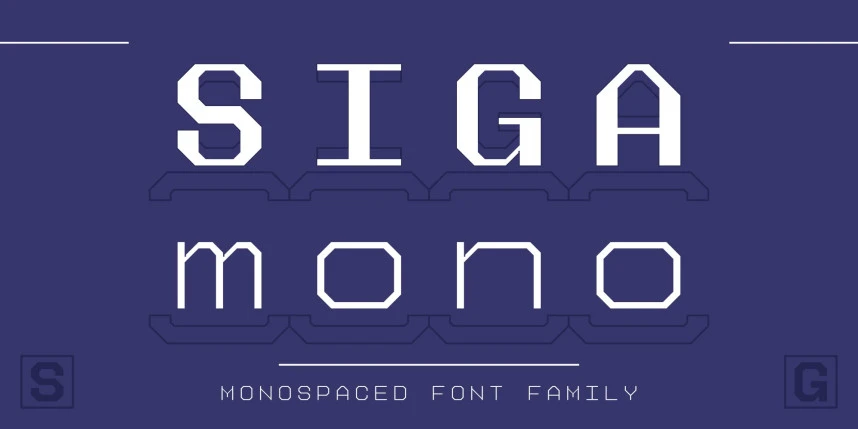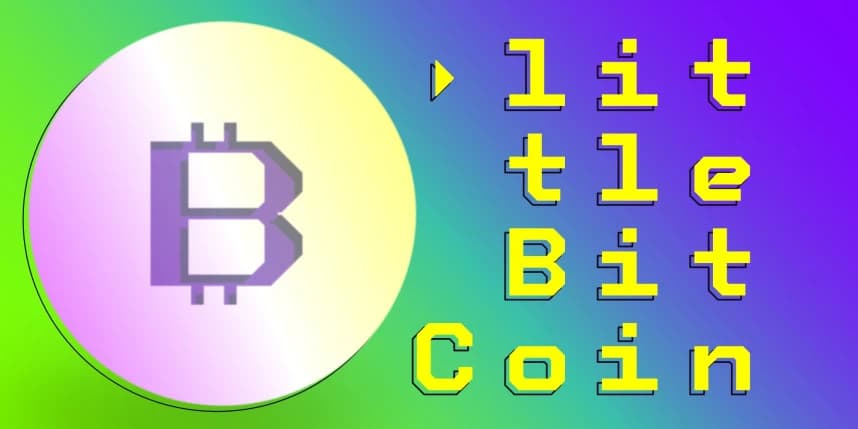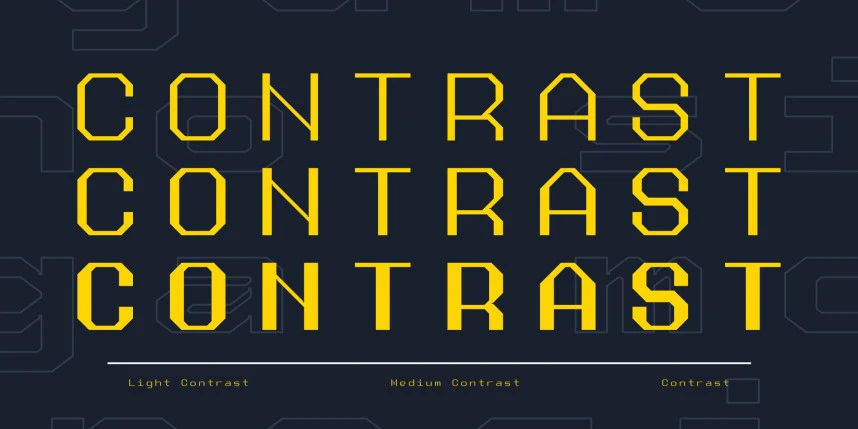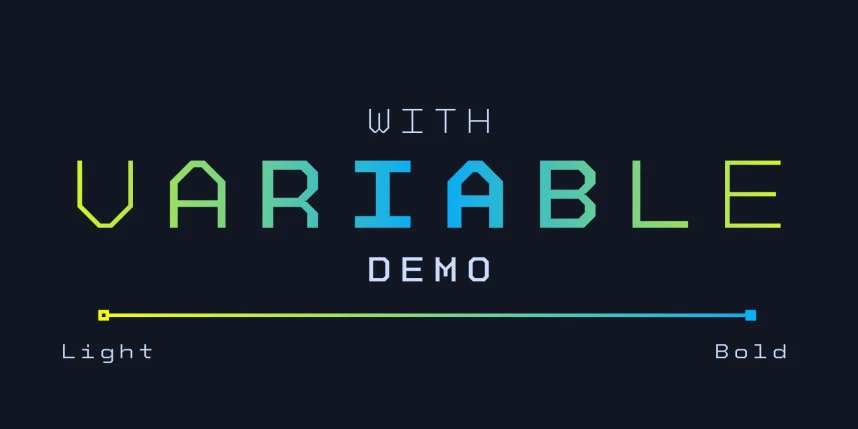
Siga Mono Font
Siga Mono, the ultimate font family for all your creative needs. Transform your digital and print projects into masterpieces with its remarkable monospace layout and distinctive style.